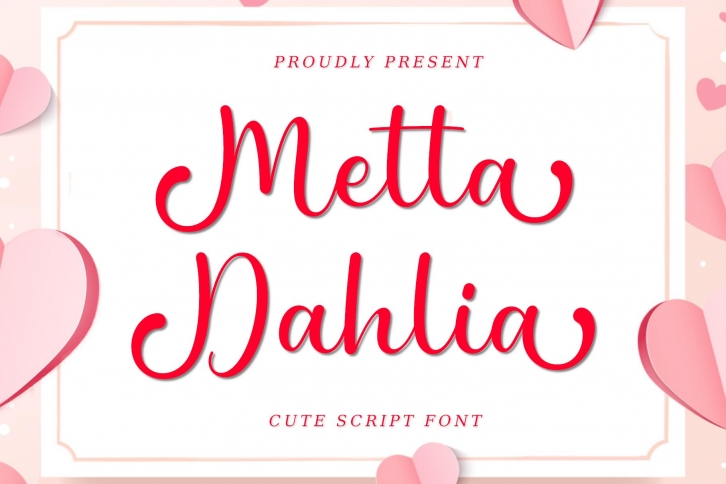
Metta Dahlia is designed for display font lovers with a semi-bold size and several beautiful tail alternatives that will make the design look even more elegant.
Metta Dahlia is a sweet, all round and flexible handwritten font. Warm, romantic and jolly, this font will turn each of your project ideas into real works of art. Have fun with this beautiful font and explore its endless variations.